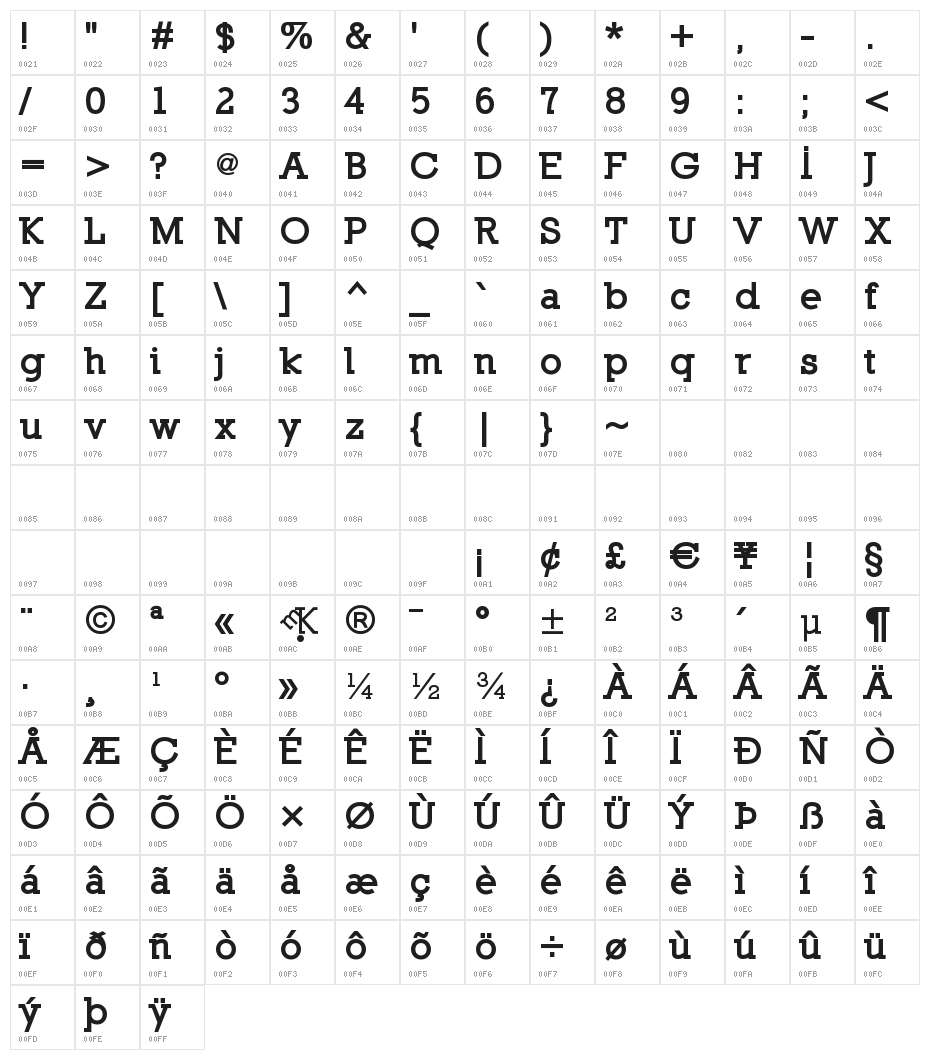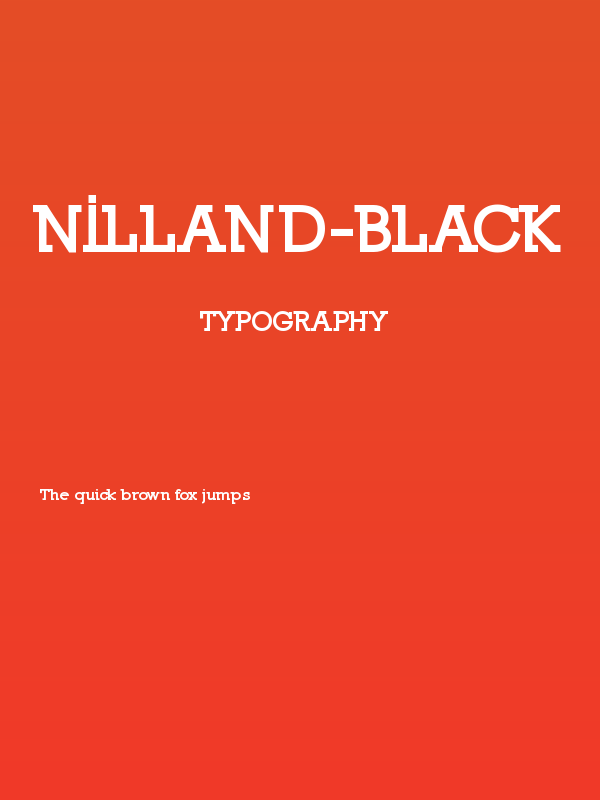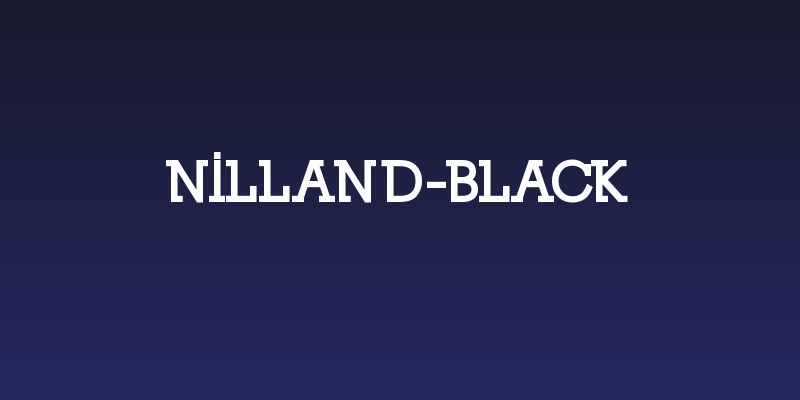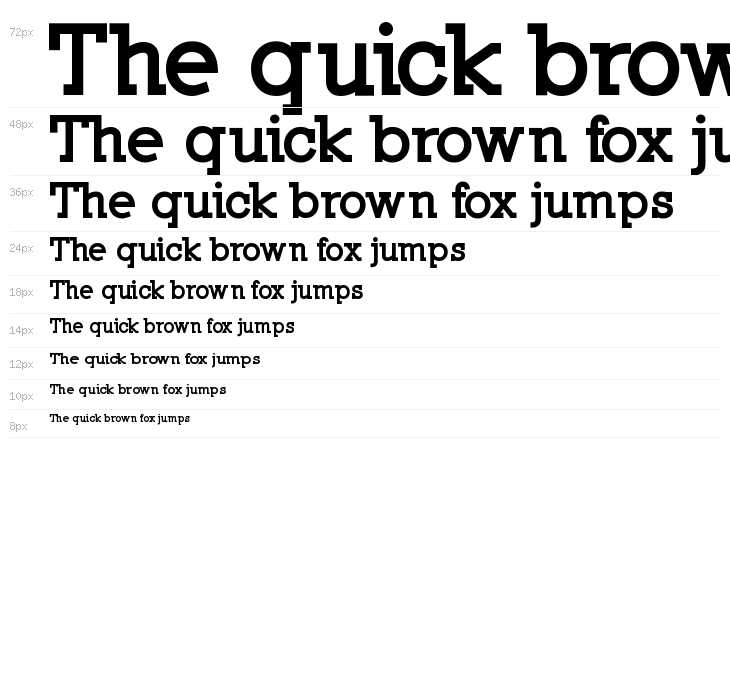
Nilland-Black Font
Nilland-Black Description
This font features a bold and robust design, characterized by thick strokes and a strong presence. The uppercase letters are uniform and structured, providing a sense of stability and authority. The lowercase letters maintain a consistent weight, ensuring readability and balance. The numerals are clear and distinct, with a modern touch that complements the overall style. Special characters are well-defined, adding versatility to the font's application. The font's boldness makes it ideal for impactful headlines and attention-grabbing designs.
| Proposed Projects | Ideal for branding, advertising, poster design, and any project requiring a strong visual impact. |